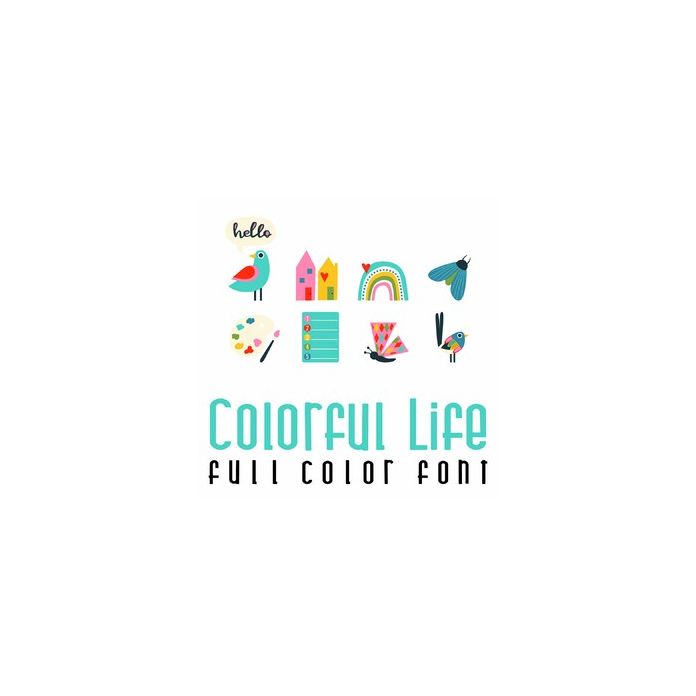
This adorable full color doodlebat font features spring imagery, project life cards, phrases and more! Perfect for scrap book pages, planner stickers, decor, card making and gifts!